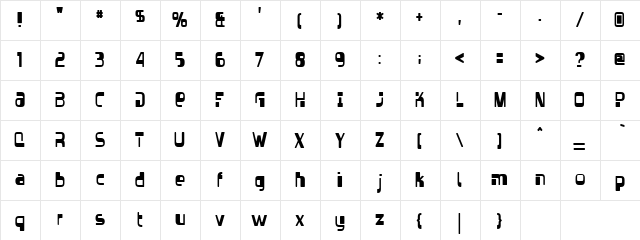
Characterisation Regular
Design Context for Characterisation Typeface
Characterisation is a composed and adaptable typeface that performs quietly and consistently across a wide range of design contexts.